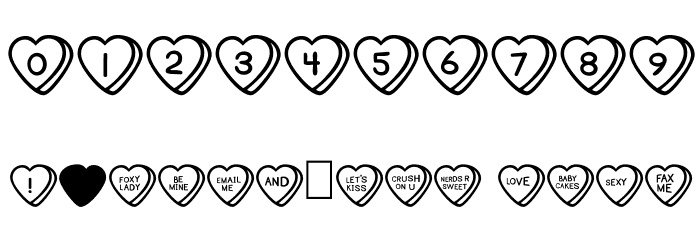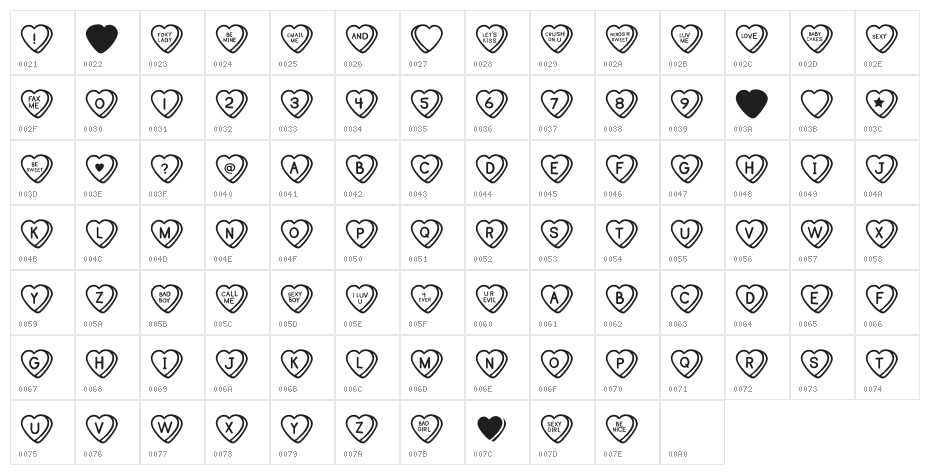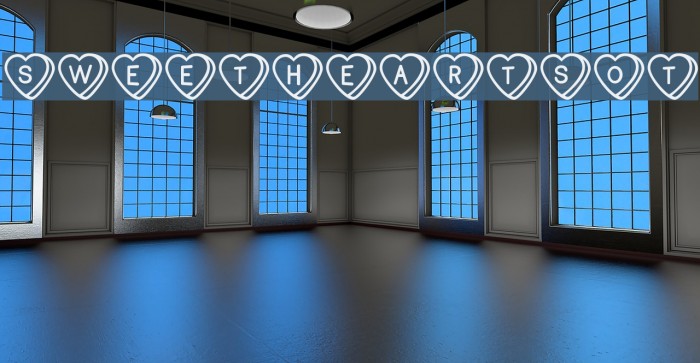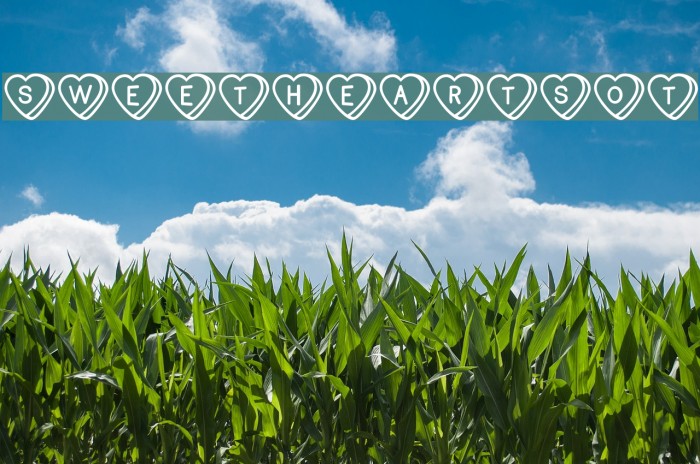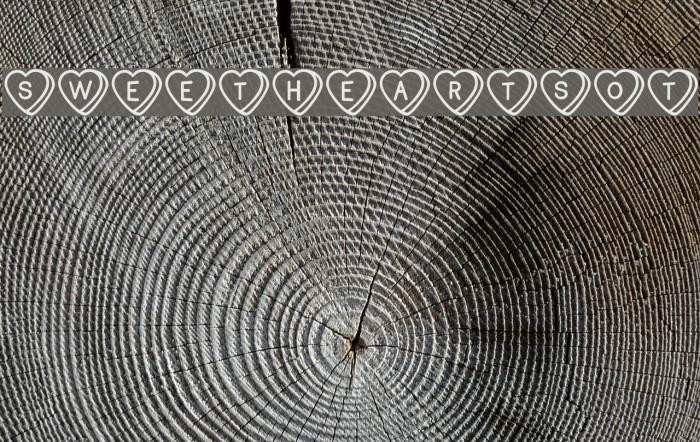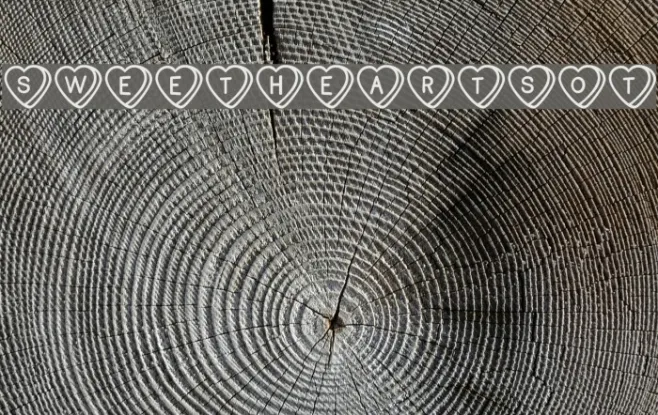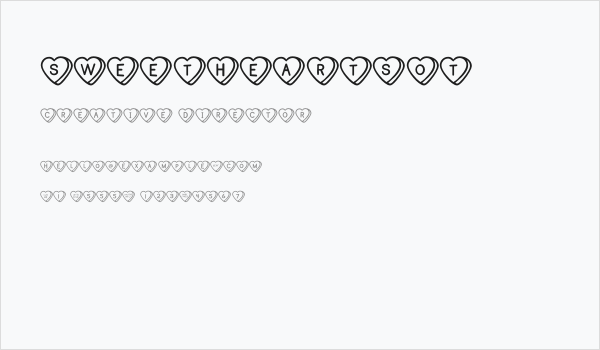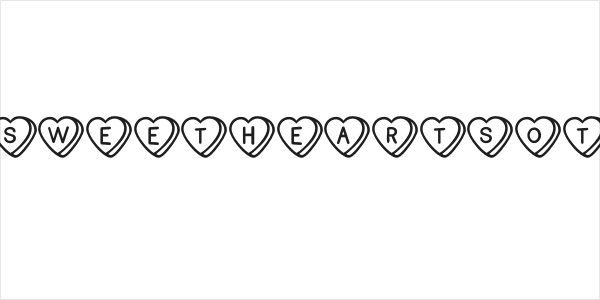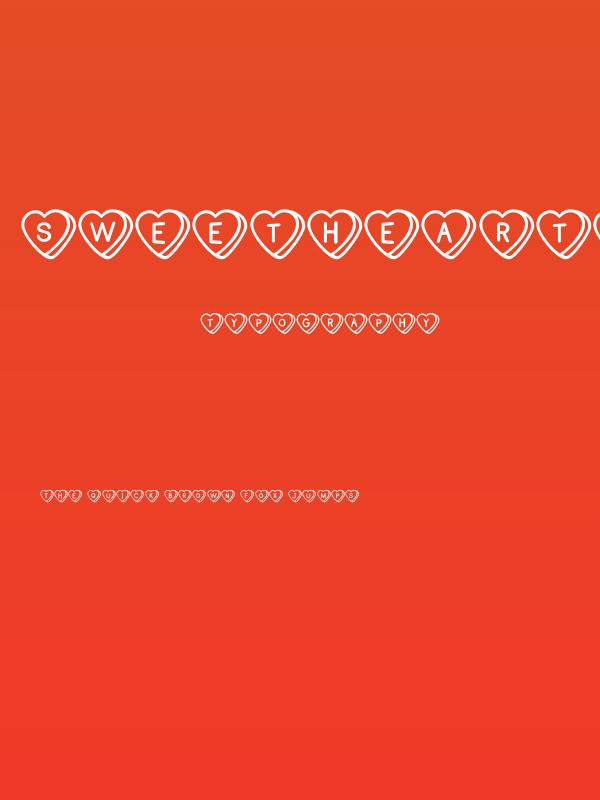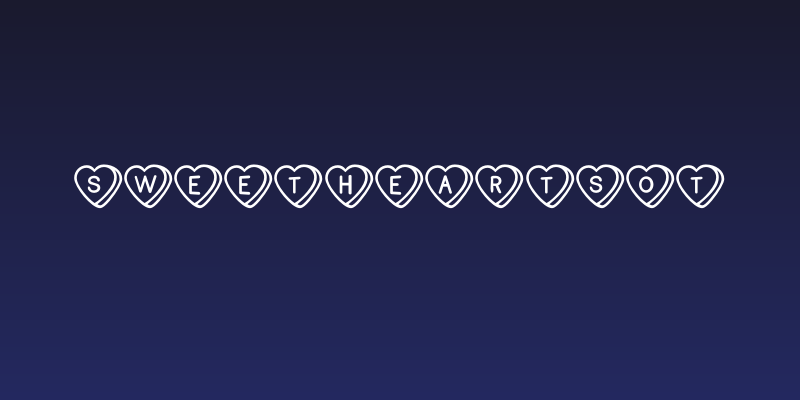
SweetHeartsOT Font
SweetHeartsOT Description
This playful and charming font features characters enclosed within heart shapes, creating a whimsical and romantic aesthetic. Each letter and number is centered within a bold heart outline, making it ideal for designs that require a touch of affection and fun. The font includes both uppercase and lowercase letters, numbers, and a selection of special characters and phrases, all maintaining the heart motif. The consistent heart shape across all characters provides a cohesive look, while the bold outlines ensure readability. This font is perfect for projects that aim to convey love, warmth, and playfulness.
| Use Case | Headlines, Logos, Greeting Cards |
| Proposed Projects | Valentine's Day cards, wedding invitations, love-themed posters, playful branding. |